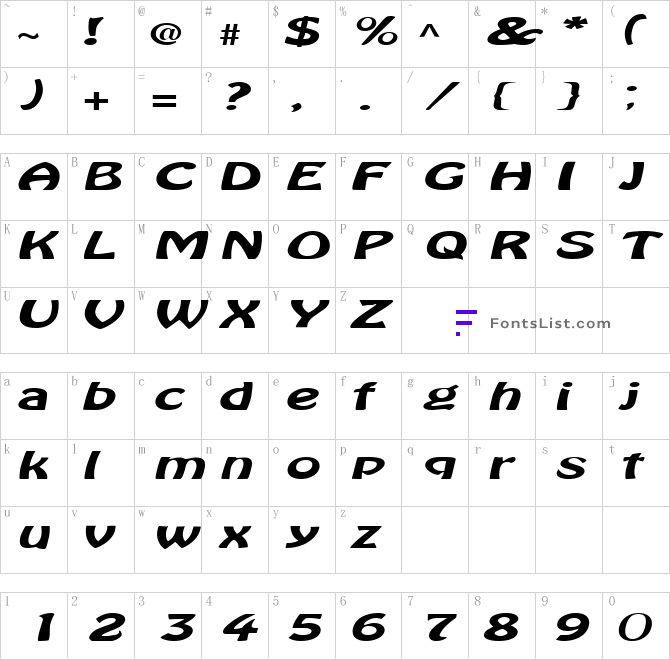
- Font Name:Batavia ttext
Batavia-Regular-ttext.ttf is a very beautiful artistic font, Batavia-Regular-ttext.ttf is widely used in the design and printing of various books and pictures,Batavia-Regular-ttext.ttf has a strong visual impact,Batavia-Regular-ttext.ttf is a commonly used font in newspapers, magazines and books, and is used in posters, e-commerce Poster design, store design, logo design, font design and other fields.Batavia-Regular-ttext.